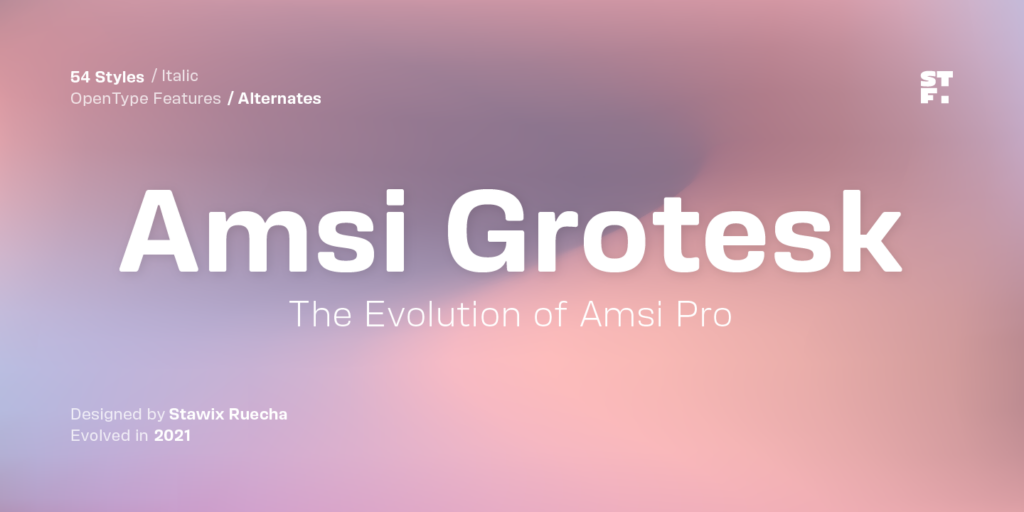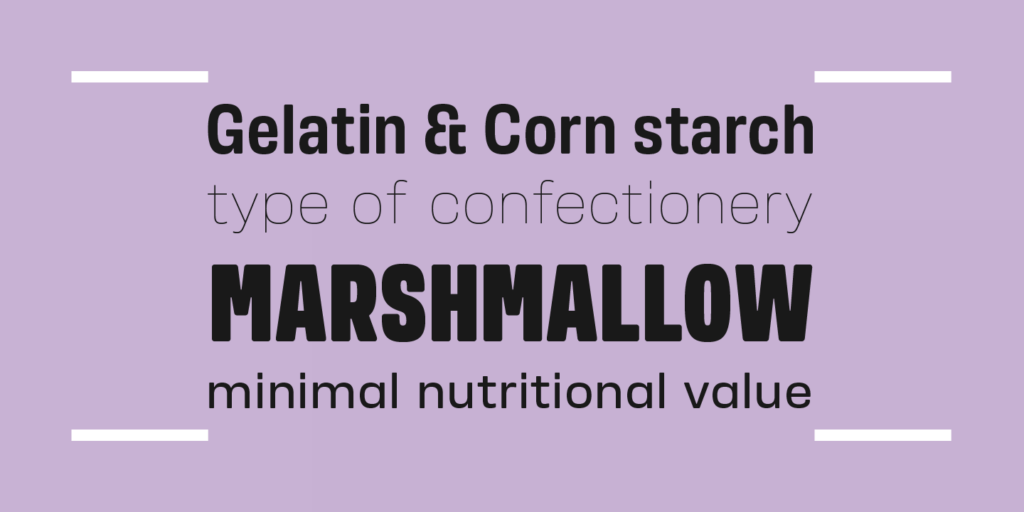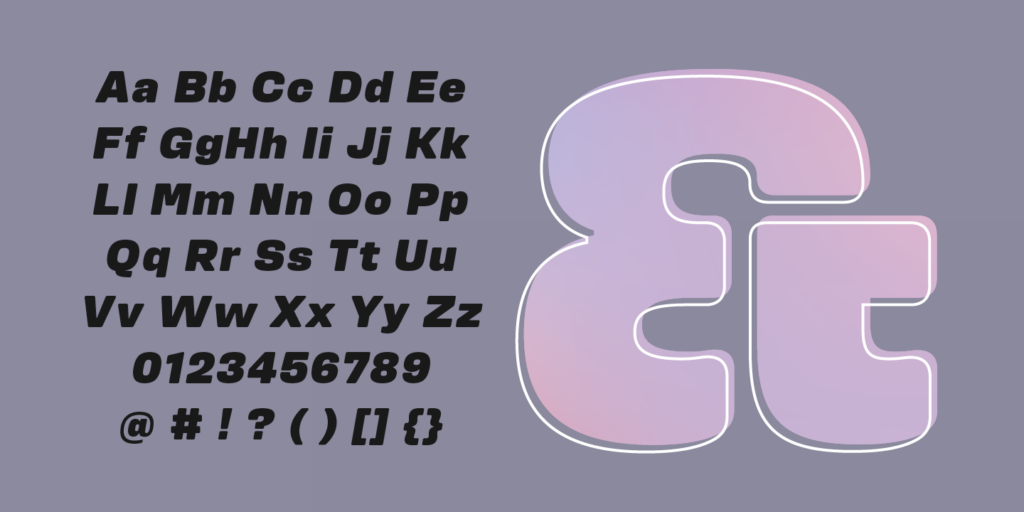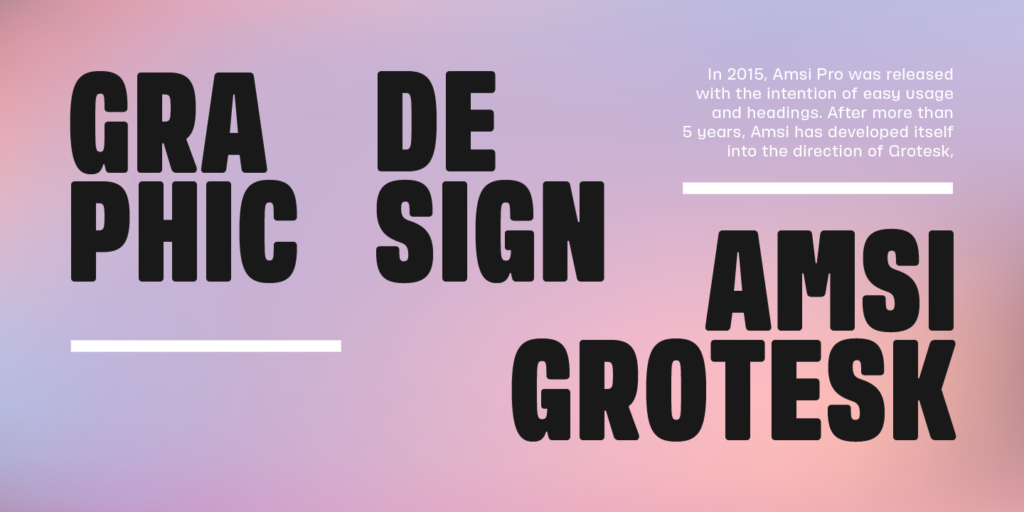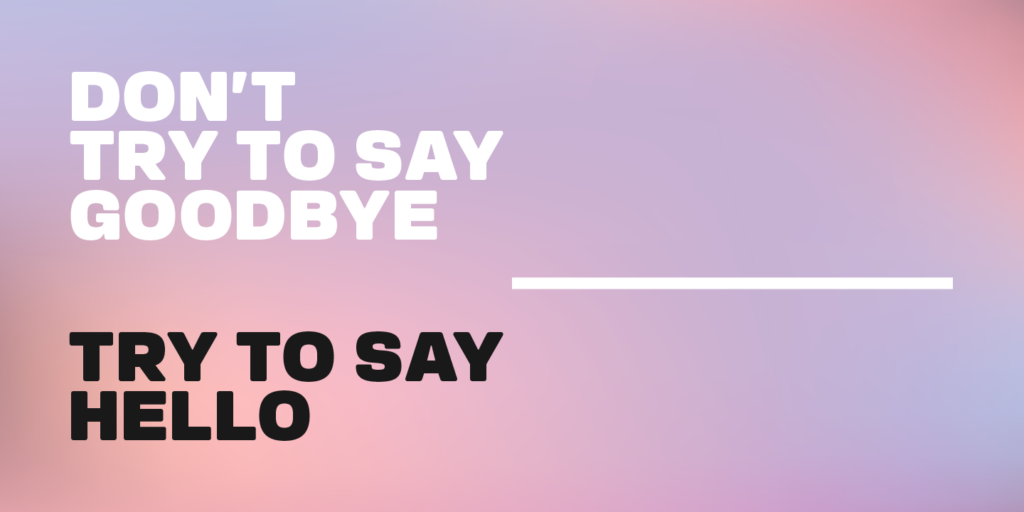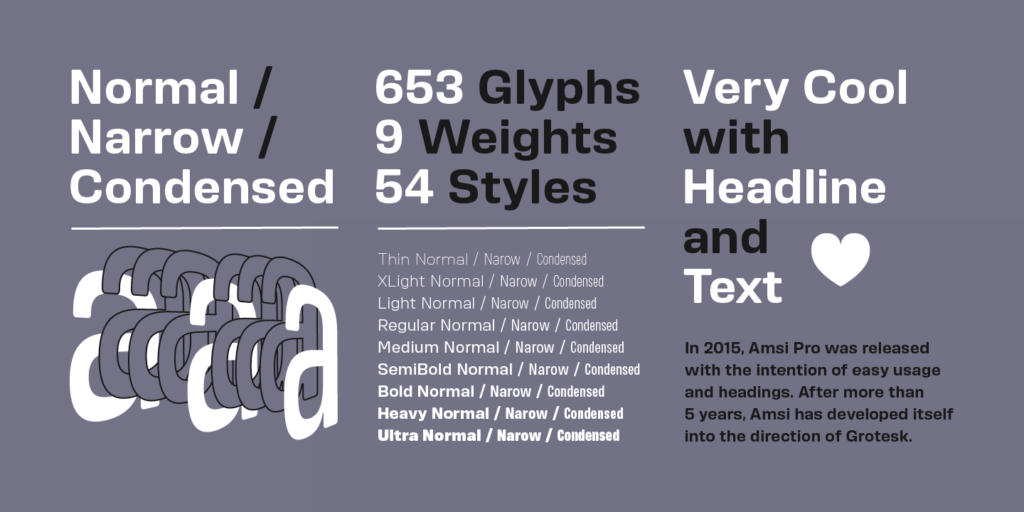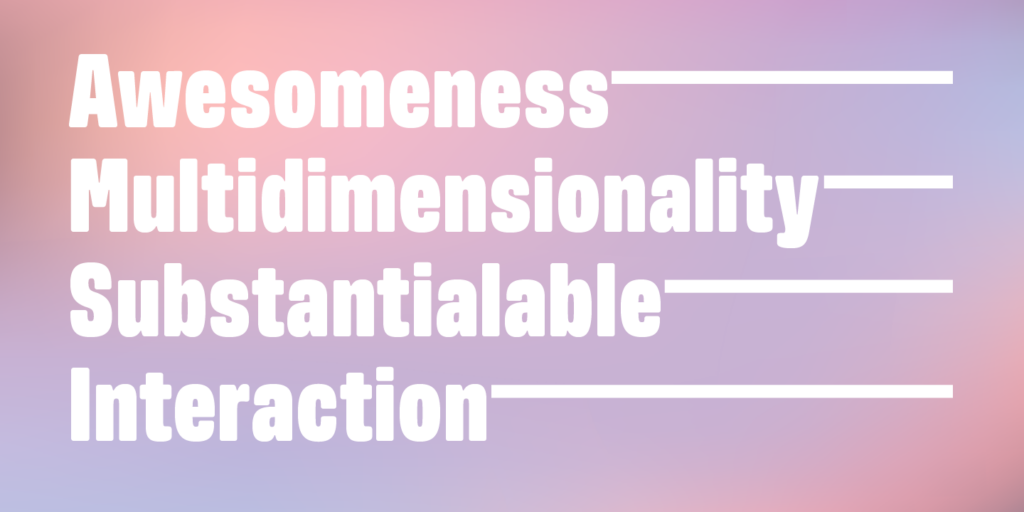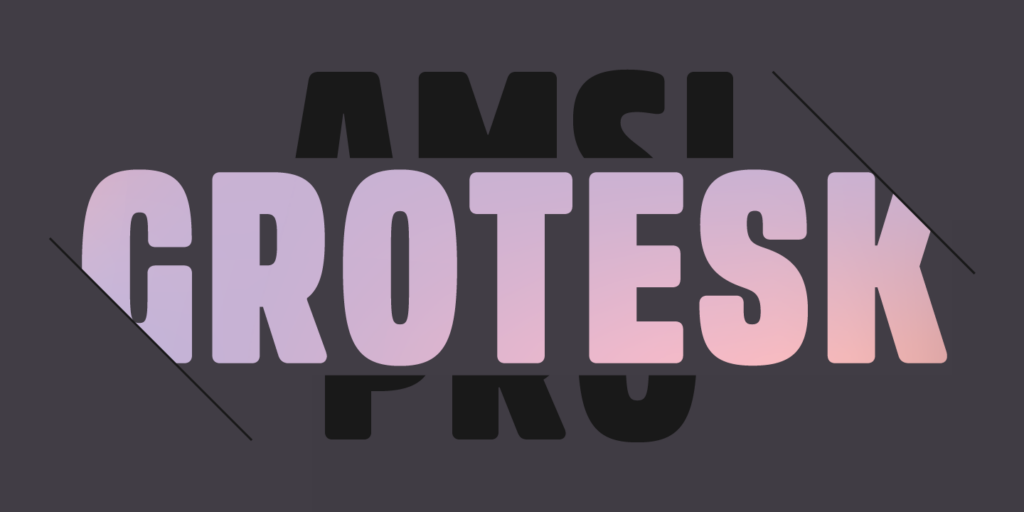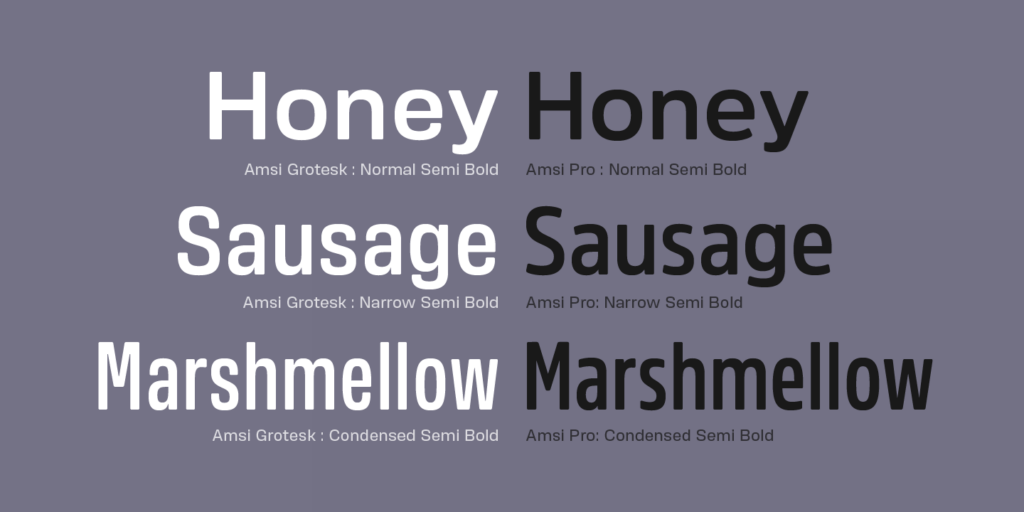
Amsi Grotesk — STAWIX Foundry
Where geometric structure meets human-centric design.
Designer
Stawix Ruecha
OpenType Features
case, dlig, dnom, frac, liga, numr, ordn, salt, sinf, ss01, ss02, ss03, ss04, ss05, ss06, subs, sups, tnum, zero
In 2015, Amsi Pro was released with the intention of easy usage and headings. After more than 5 years, Amsi has developed itself into the direction of Grotesk, which can be use comfortably as Graphic, both text and headlines, keeping its friendliness trait with Semi-Rounded and Humanist approach looking pleasing to the eye, succeeding the DNA of Amsi. The font has been set to equipped with 3 widths (Normal / Narrow / Condensed) for flexibilities in various demands. We are truly proud to present Amsi Grotesk.